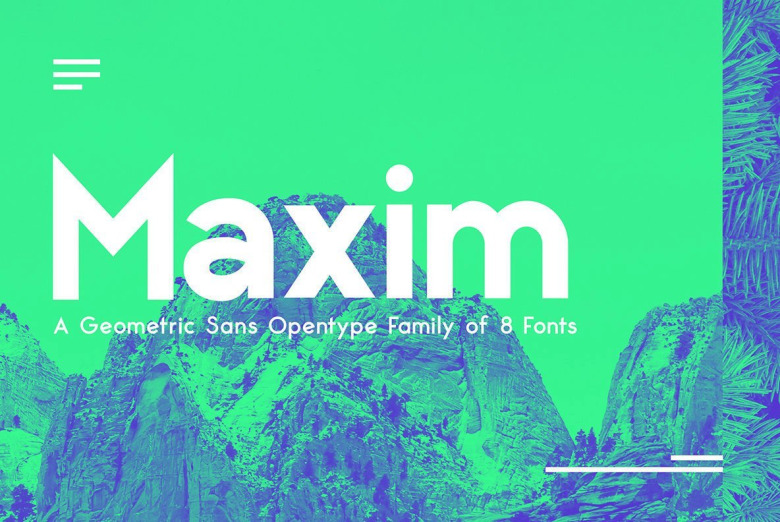
Maxim Sans Font Family
Maxim Sans is a dynamic contemporary sans serif typeface of 8 fonts. Sports geometry clean stylized and fused style for headlines and texts. Maxim Sans is a perfect companion for branding, editorial and signage, also works great for bigger applications.